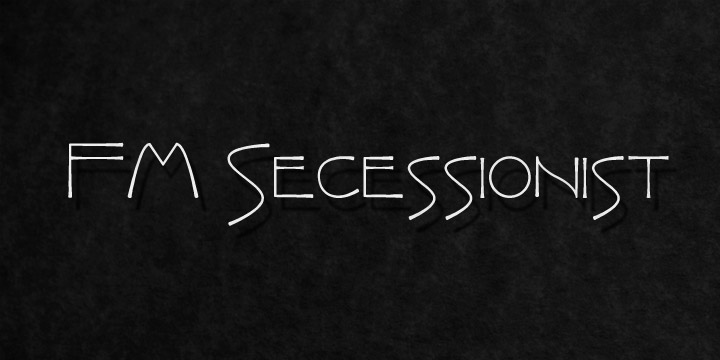
Art Nouveau typeface ‘Secessionist’ draws inspiration from Wiener Secessionist Joseph Maria Olbrich’s handwriting, as seen on his architectural drawings from the 1920’s. You can use these fonts to create posters, greeting cards, scrapbooks, CD labels, T-shirts, coffee mugs, digital videos websites and banners.